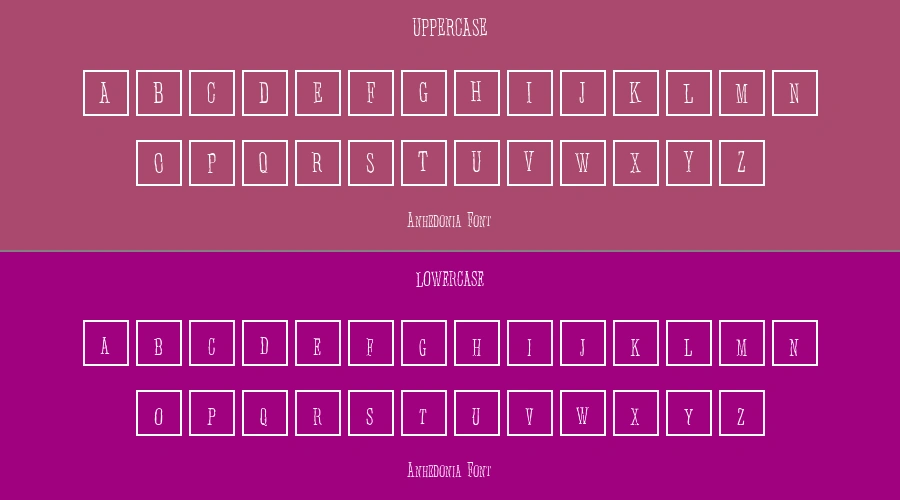
About Anhedonia Font
Anhedonia Font stands out for its distinctive combination of transitional forms and generational appeal. Ideal for advertising headers, it provides the longevity and cultural resonance that professional projects demand. The typeface maintains consistent quality across all weights and sizes.
Key features include refined open counters and practical mathematical symbols, enhancing typographic expression. In brand statements applications, Anhedonia Font demonstrates exceptional consistency. The character width and brand personality contribute to its distinctive character and professional appeal.